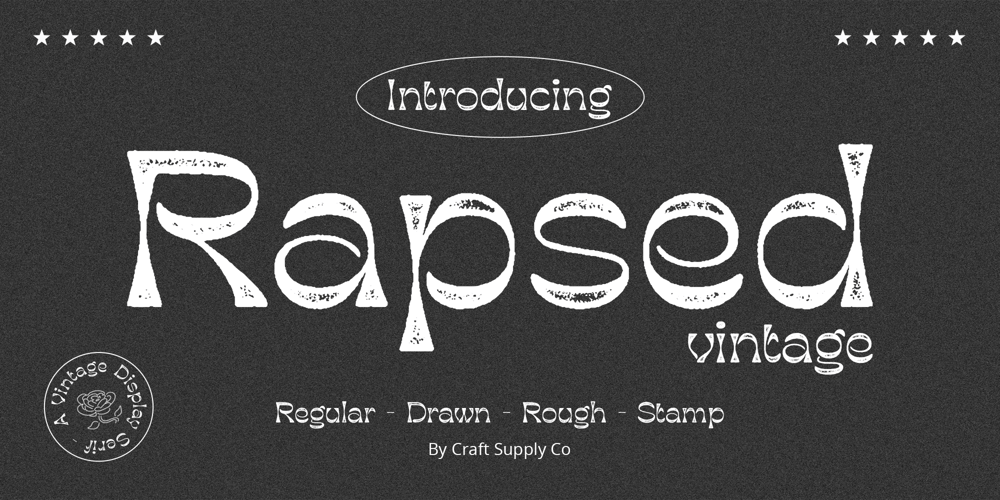
Rapsed Vintage Font Family was designed by Trio Nazzar Saputra, Wahyu Hadi Yuana and published by Craft Supply Co. Rapsed Vintage contains 4 styles and family package options. Introduction to Rapsed Vintage – Stamp FontRapsed – Vintage Font is a unique serif font, embodying a retro and vintage feel. It features a grunge, stamped, rough appearance, ideal for nostalgic designs. This font captures the essence of a bygone era, making it perfect for projects seeking a classic display.Design and TextureRapsed’s design boasts large, prominent serifs, giving it a bold and distinct look. Its textured, rough edges simulate a stamped effect, adding an authentic vintage character. This grunge aesthetic is not only eye-catching but also adds depth to the font, enhancing its retro appeal.Versatility in UseRapsed is versatile for various design applications, from branding to poster creation. Its vintage style is perfect for thematic restaurants, event flyers, and historical projects. Additionally, its distinct appearance makes it suitable for book covers and merchandise that require a touch of nostalgia.Accessibility and AppealDesigned to be user-friendly, Rapsed appeals to a wide range of audiences. Its simplicity in design ensures readability, while its unique character captures interest. This font is a valuable asset for designers aiming to infuse a vintage feel in their work, bridging the gap between past and present design trends.